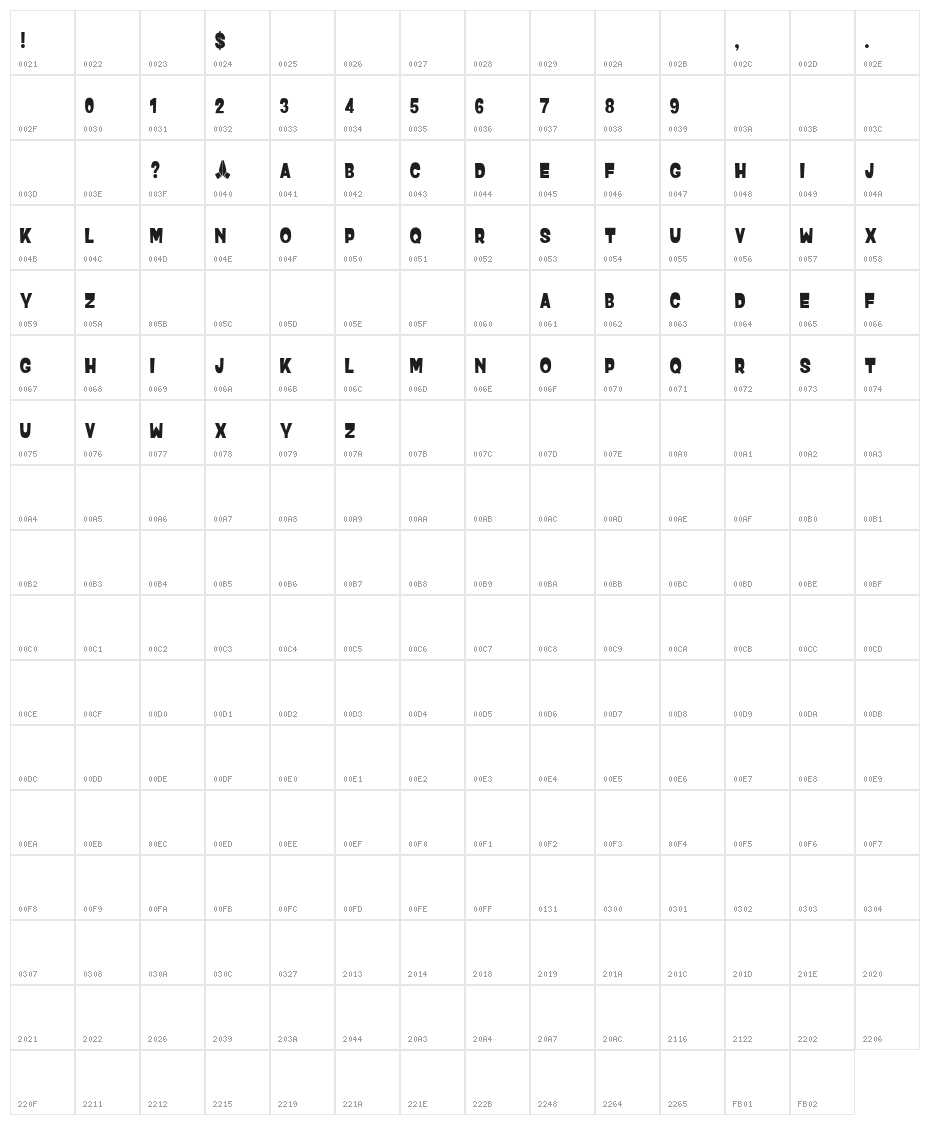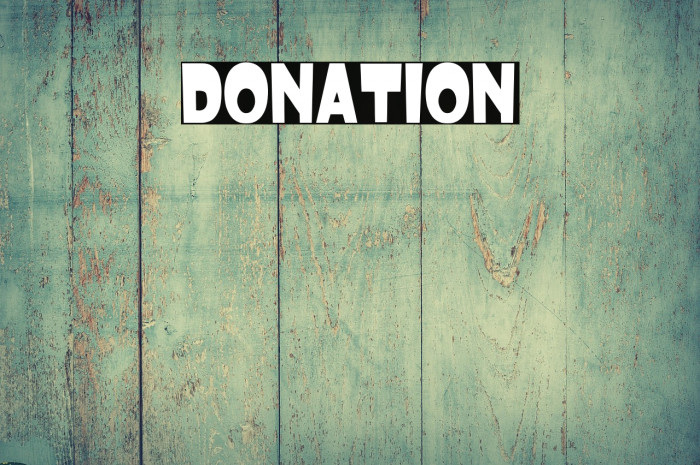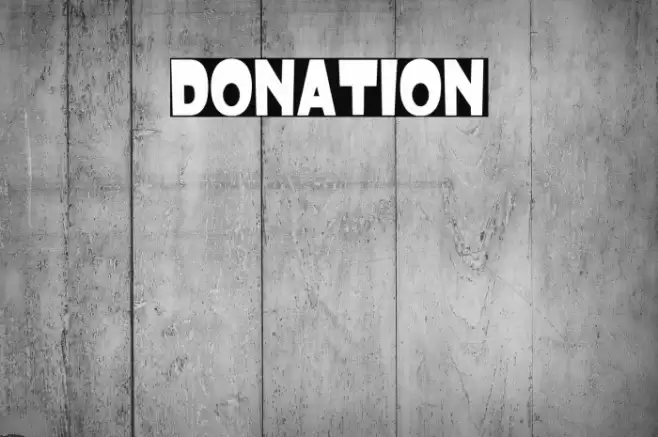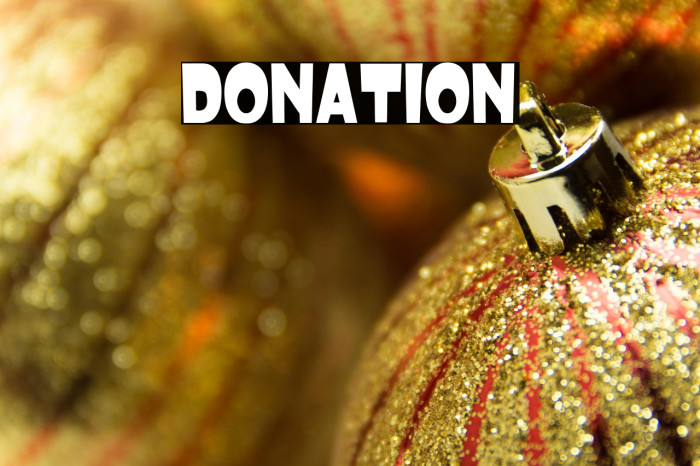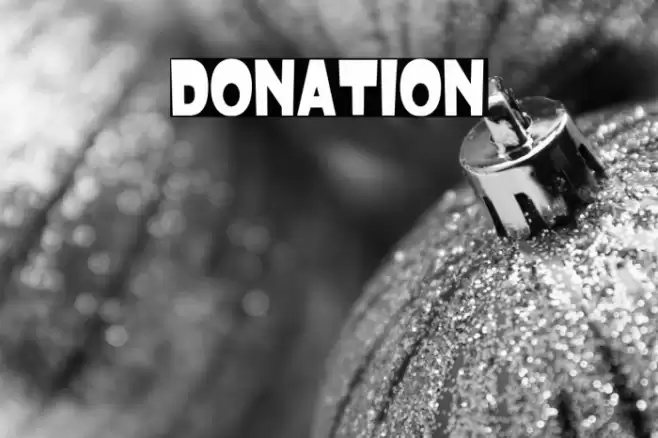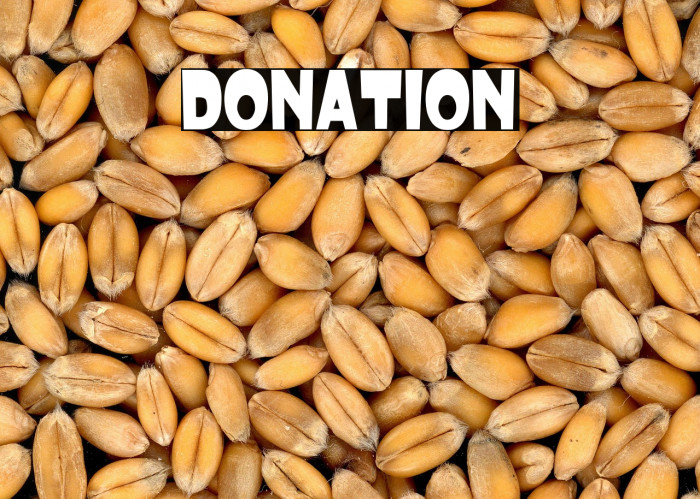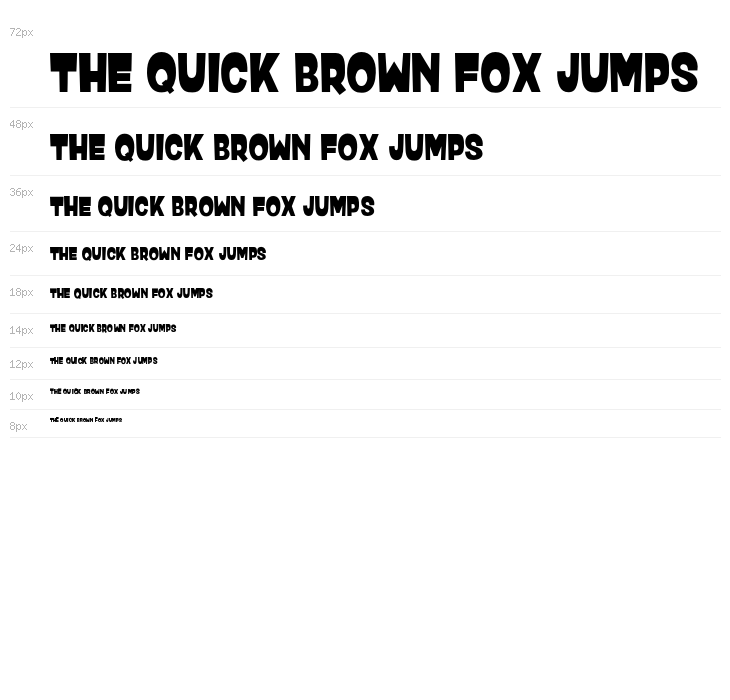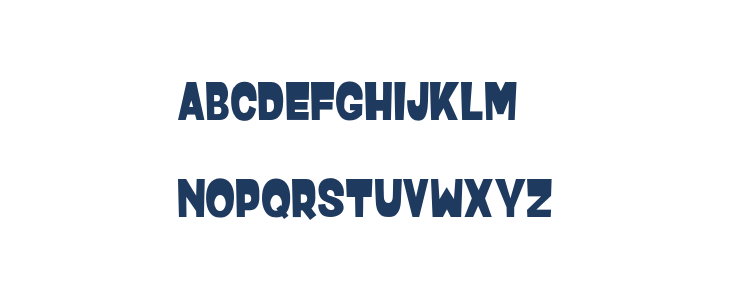
Donation Font
Donation Description
This font features bold, chunky letters with a playful and dynamic style. The characters have a strong presence, making them ideal for attention-grabbing designs. The uppercase and lowercase letters maintain a consistent weight, contributing to a cohesive look. The numbers and special characters are equally bold, ensuring they stand out in any context. The overall appearance is slightly whimsical, with some letters having unique angles and curves that add to its charm.
| Overall Style | Playful, Dynamic |
| Proposed Projects | Ideal for posters, headlines, children's books, and playful branding projects. |